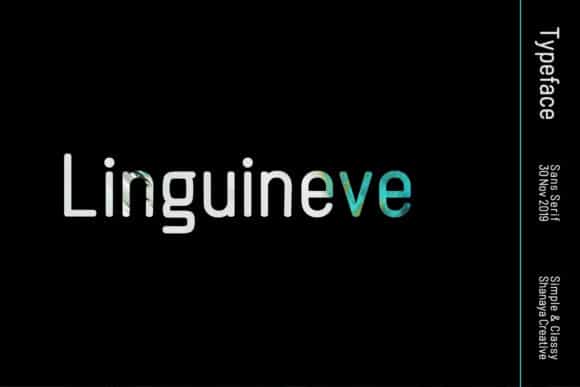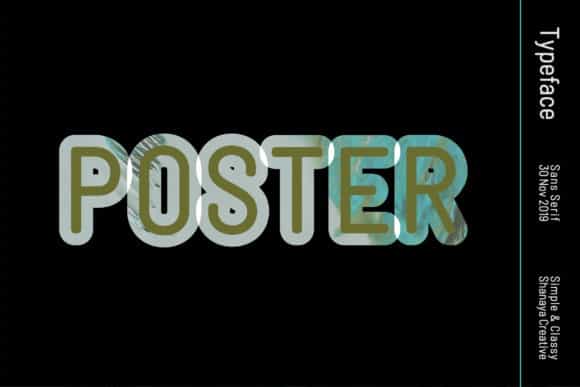
Linguineve is a rather plain sans serif typeface that, at the same time, looks gorgeous at any setting. It is suitable for logo designs, magazine, invitations, web layouts, name cards, headers and branding. It also looks great in all capitals with wide set spacing if you wish to give it a more elegant appearance.